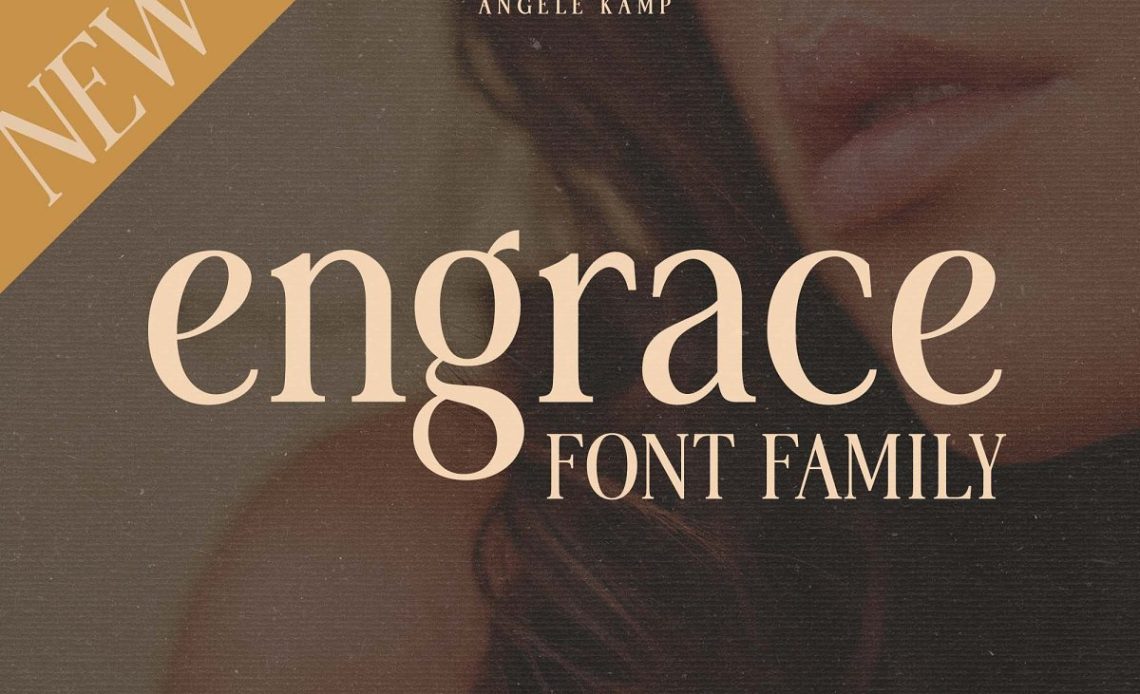
Looking for a font family that's both elegant and stylish? Look no further than Engrace, created by Angele Kamp. This serif font family is perfect for those seeking a vintage logo font or looking to elevate their design game. Engrace comes in a family of 8, including 4 weights from light to bold in both regular and italic styles, making it a versatile option for any project.
Engrace is the definition of luxury and high fashion, combining romantic and modern elements into one stunning package. Its curves are both classy and feminine, making it the perfect choice for any design that requires an extra touch of elegance. Plus, with its availability in multiple formats (OTF, WOFF, Variable TTF), you can use Engrace in a variety of programs and on different platforms.
Angele Kamp, the designer behind Engrace, is a creative-at-heart with a love for florals, watercolors, illustrations, hand-lettering, and font design. Her style is feminine, elegant, and floral, with soft, neutral colors that add an extra touch of sophistication to her work. Angele's designs are inspired by nature, and her love of flowers shines through in her work, making Engrace the perfect font for any project that requires a touch of natural beauty.
Whether you're creating a logo, designing wedding invitations, or just looking for a font family that's both versatile and beautiful, Engrace is the perfect choice. Don't wait to add this luxury font family to your collection and start designing straight away!